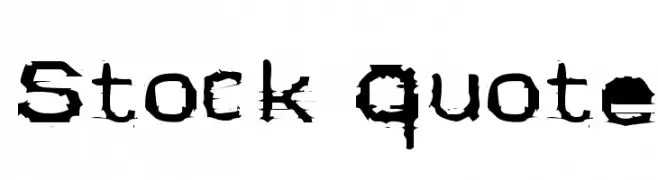
Stockholm Font
Font by antoniorodriguesjr.com
A bold, geometric font with clean lines and a modern aesthetic.
Stockholm Slab Font
Font by antoniorodriguesjr.com
A bold, modern slab serif font with strong, block-like serifs.
Dead Stock Font
A bold, energetic script font with a hand-painted, brush-like appearance.
Stockholm Mono Font
Font by antoniorodriguesjr.com
A modern, bold monospaced font with geometric precision.
DaDa Antiquerist Font
A whimsical, hand-drawn font with irregular, artistic strokes.
LudlowTempoBold Font
A bold, geometric font with strong, clean lines and modern appeal.
Opticon One1 Font
A modern, geometric font with clean lines and a minimalist style.
BywayEModified Font
A bold, modern sans-serif font with clean lines and geometric structure.
Tarpon Motel Font
Font by Barry Stock
Hot Rod SCLF1.0 baby. Font
A bold, angular font with a dynamic and energetic style.
Skjend Hans Gotisk Regular Font
An ornate Blackletter font with intricate swashes and a Gothic aesthetic.
Stockers Font
A classic serif font with a modern twist, featuring sharp serifs and smooth curves.
HelloStockholm-Regular Font
Font by Mats
A bold, brush-style script font with dynamic, flowing strokes.
High So Serious Font
A tall, elegant font with a modern yet classic appeal.
Stock Quote Font
Font by Andy Krahling - Sunwalk
A bold, distressed font with a grunge, hand-drawn aesthetic.
BywayC Font
A modern sans-serif font with clean lines and uniform stroke widths.
BywayD Font
A bold, modern sans-serif typeface with clean lines and excellent readability.
Monstroula Roman Font